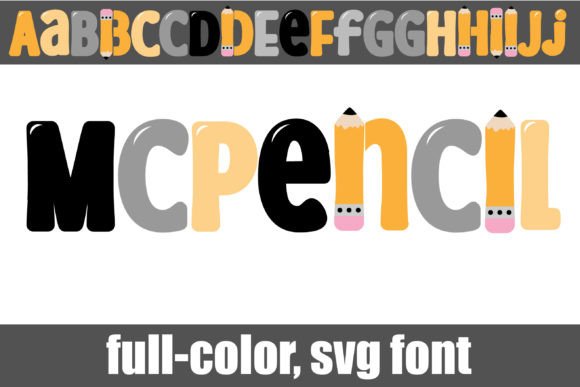
Journey into a world of vibrant creativity with Mcpencil Font, the ultimate font family that brings your school handouts to life! Designed by the artistic minds at Illustration Ink, Mcpencil Font captivates with its colorful "pencil" lettering, injecting a burst of energy into your educational materials.
Imagine your school handouts adorned with the lively strokes of Mcpencil Font, transforming them from ordinary sheets into engaging masterpieces. Capture the attention of your audience with eye-catching headlines, captivating subheadings, and informative text that leaps off the page. Let your words dance across the screen or paper, leaving a trail of inspiration and enthusiasm in their wake.
With Mcpencil Font, you're not just downloading a font; you're unlocking a portal to boundless imagination. Its vibrant hues ignite curiosity, stimulate the senses, and create an immersive learning experience that leaves a lasting impact. Transform your lessons, projects, and presentations into unforgettable journeys of knowledge and creativity.
Step into the realm of color-filled expression with Mcpencil Font, where learning becomes an adventure. Its full-color (SVG) brilliance captivates audiences, enhancing comprehension and retention. Unleash your inner artist and experiment with a spectrum of colors to create handouts that are as unique as your imagination.
But be warned, the wonders of Mcpencil Font are not for the faint-hearted. It's a font that demands attention, ignites imaginations, and leaves an indelible mark on the minds of your audience. If you're ready to embrace the kaleidoscope of creativity and transform your school handouts into vibrant works of art, then Mcpencil Font awaits you.